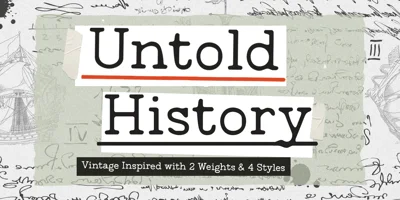
Untold History Font
Untold History Font is ideal for historical documentaries, museum exhibition titles, antique shop branding, vintage book covers, heritage foundation materials, archaeological publications, period drama titles, historical fiction novels, educational presentations, and legacy brand identities. This evocative typeface brings authentic historical character to projects requiring depth, gravitas, and connection to the past.
What makes Untold History Font exciting is its remarkable ability to transport readers across centuries through letterforms that whisper tales of bygone eras and forgotten civilizations. The font features weathered character details with subtle aging effects that suggest ancient manuscripts and time-worn inscriptions, creating an immediate emotional connection to historical narratives. Its sophisticated design captures the mystery and gravitas of untold stories while maintaining contemporary readability, making it perfect for projects seeking to bridge past and present with authentic historical resonance.
The Untold History Font family encompasses multiple period-inspired variations including Regular, Bold, Aged, and Manuscript styles, along with complementary Decorative and Ornamental versions. Each style maintains the font's distinctive historical character while providing comprehensive typographic flexibility for educational institutions, cultural organizations, and heritage-focused branding applications.
Whether you're creating historical educational materials, designing museum exhibitions, or developing heritage brand identities, Untold History Font provides the authentic period typography needed for compelling historical storytelling. This font seamlessly combines historical authenticity with modern functionality, making it an exceptional choice for projects requiring both scholarly credibility and engaging presentation. Its meticulously crafted letterforms ensure outstanding performance across academic publications, historical documentaries, and cultural heritage materials that preserve and celebrate our collective human story.